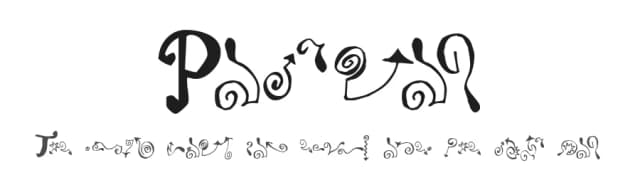
About Cassatta Zig Font
Cassatta Zig is a decorative font designed by Jeni Pleskow. It includes 58 glyphs, a regular weight, TTF (TrueType) format, and 89 languages. Cassatta Zig is free to download; check the license details on this page before commercial use. Decorative fonts like Cassatta Zig work best for logos, posters, packaging, and standout headlines.
Cassatta Zig Font is a decorative font that shines as a display or heading face. Pair it with a clean sans-serif or serif font for body text β the contrast creates a clear hierarchy while the two styles stay balanced and easy to read.
Cassatta Zig Font
by Jeni Pleskow
Cassatta Zig Font is a decorative typeface by Jeni Pleskow, ideal for logos, invitations, branding, and creative projects.